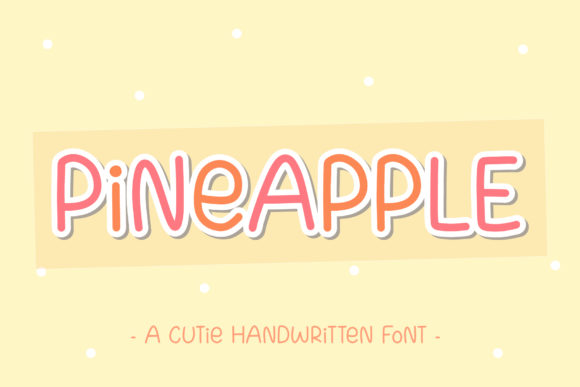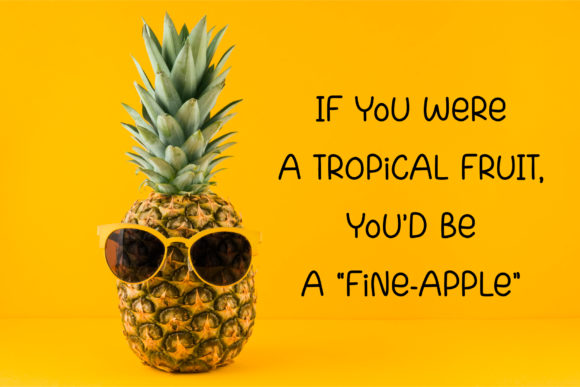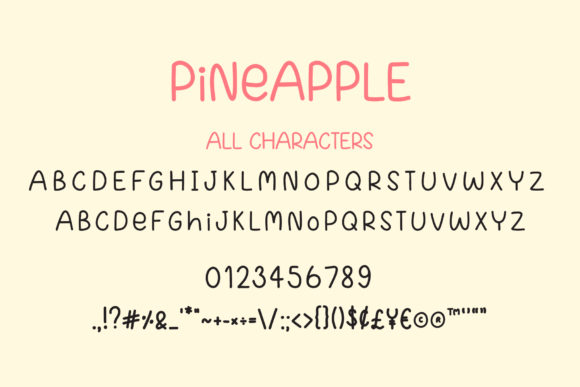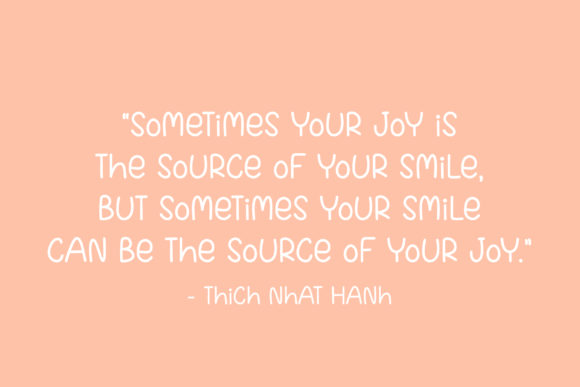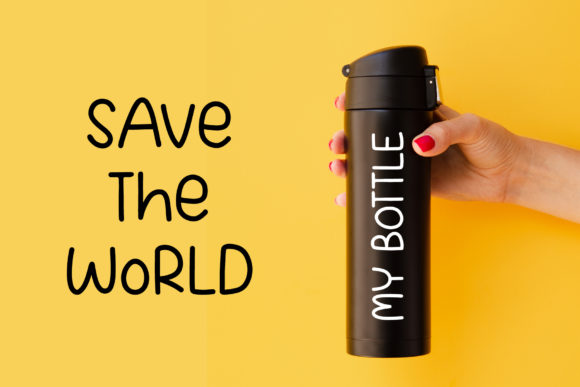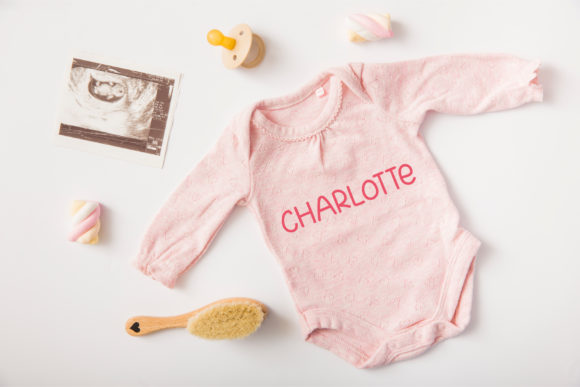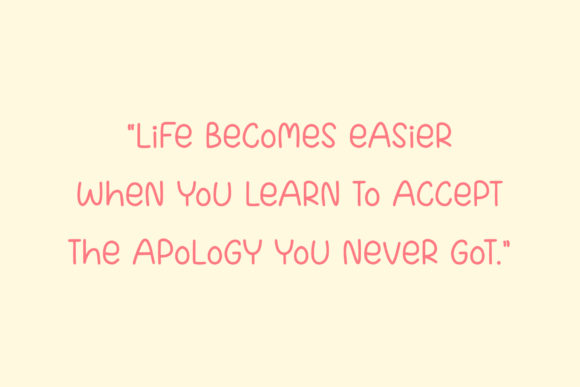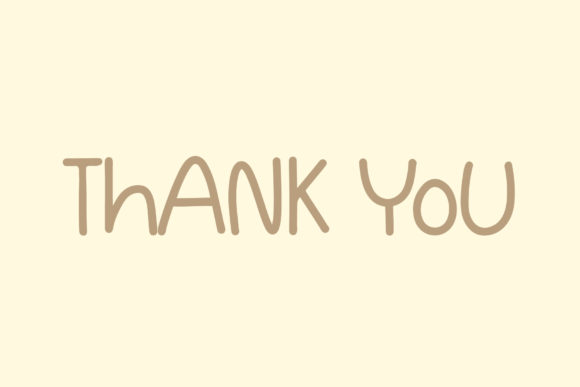
Pineapple Font
About Pineapple Font
Pineapple is a simple and friendly handwritten font. It can be used for kid and school projects and it can also be used for posters, t-shirts, invitations, quotes, badges, and much more.